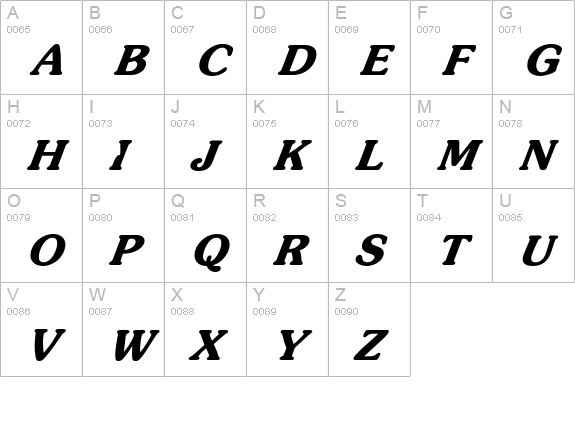
Sojourn BoldItalic Font Details
Sojourn BoldItalic is a captivating and elegant font that effortlessly combines strength and style. Its unique and bold italic design adds a touch of sophistication to any creative project or design. This font is perfect for making a statement and capturing attention. Its strong, slanted strokes exude confidence and make a lasting impression. Whether you're designing a logo, creating a poster, or crafting a headline, Sojourn BoldItalic will elevate your work to new heights. What makes Sojourn BoldItalic even more appealing is that it is freely available to download at FontsMarket.com. Yes, you read that right - this stunning font can be yours at no cost. FontsMarket.com is a trusted platform that offers an extensive collection of high-quality fonts, and Sojourn BoldItalic is just one of the many gems you can find there. By choosing Sojourn BoldItalic, you not only enhance your design with its bold and stylish aesthetic but also save money. This font delivers a premium look without the premium price tag. It's a win-win situation for both your creativity and your budget. Sojourn BoldItalic is the perfect choice for those seeking a versatile font that can make a bold statement. Whether you're aiming for a modern or classic look, this font will effortlessly adapt to your needs. Its sleek and stylish curves will add a touch of elegance to any project, while its italicized form adds a hint of sophistication. With Sojourn BoldItalic, your designs will stand out from the crowd and leave a lasting impression on viewers. So why wait? Visit FontsMarket.com today and download this incredible font for free. Unleash your creativity and let Sojourn BoldItalic take your designs to the next level.